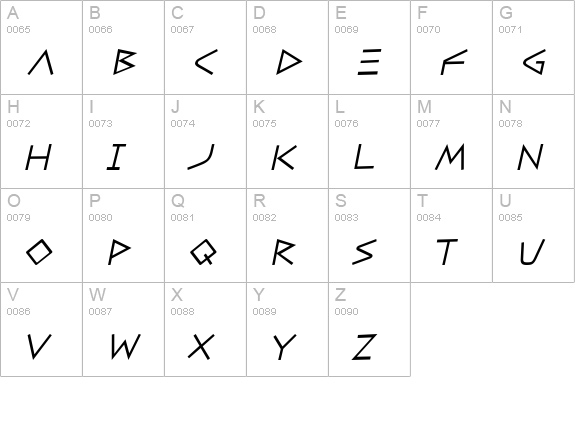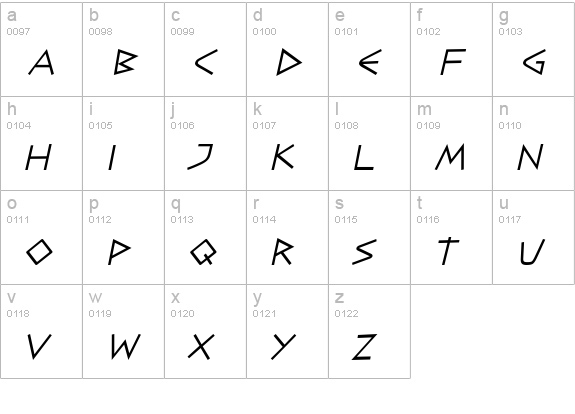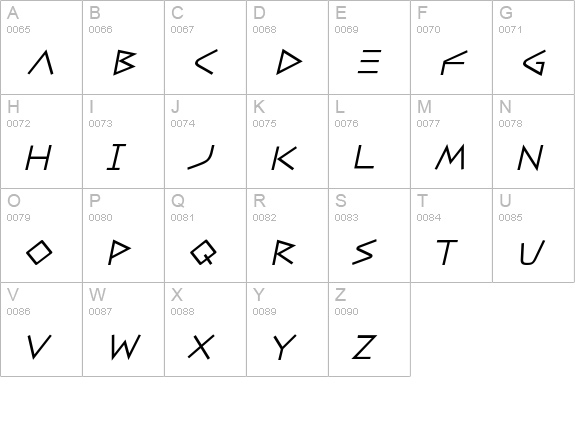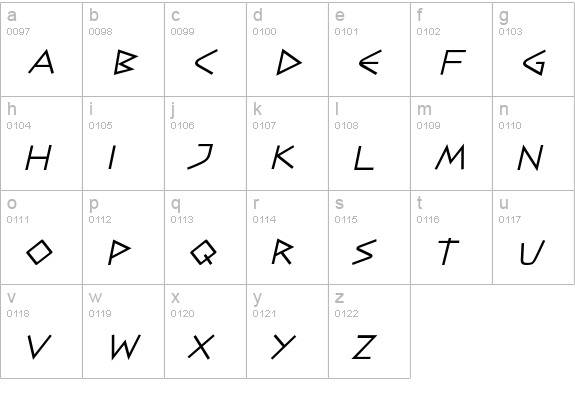
CaesarBrute BTN Oblique Font Details
CaesarBrute BTN Oblique is a distinctive, italic variant in the CaesarBrute typeface family \xE2\x80\x94 well suited to design and typography projects.
CaesarBrute BTN Oblique font is a stunning display font that exudes elegance and power. With its bold and slanted letterforms, this font is perfect for creating eye-catching headlines, logos, and posters. The unique design of CaesarBrute BTN Oblique font adds a touch of sophistication to any project, making it stand out from the crowd. What sets CaesarBrute BTN Oblique font apart is its versatility. Whether you're creating a modern website, a vintage-inspired advertisement, or a sleek magazine layout, this font can adapt to any style or theme. Its distinctive curves and sharp angles make it a visually striking choice that demands attention. But the best part? CaesarBrute BTN Oblique font is available for free download at FontsMarket.com. That's right, you can get your hands on this incredible font without spending a dime. It's the perfect opportunity to enhance your design projects without breaking the bank. So why wait? Take advantage of this amazing offer and download CaesarBrute BTN Oblique font today. Elevate your designs with its bold and captivating presence, and make a lasting impression on your audience. Whether you're a designer, a marketer, or a business owner, this font is a must-have in your creative toolkit. Get it now at FontsMarket.com and let your imagination run wild with the endless possibilities of CaesarBrute BTN Oblique font.